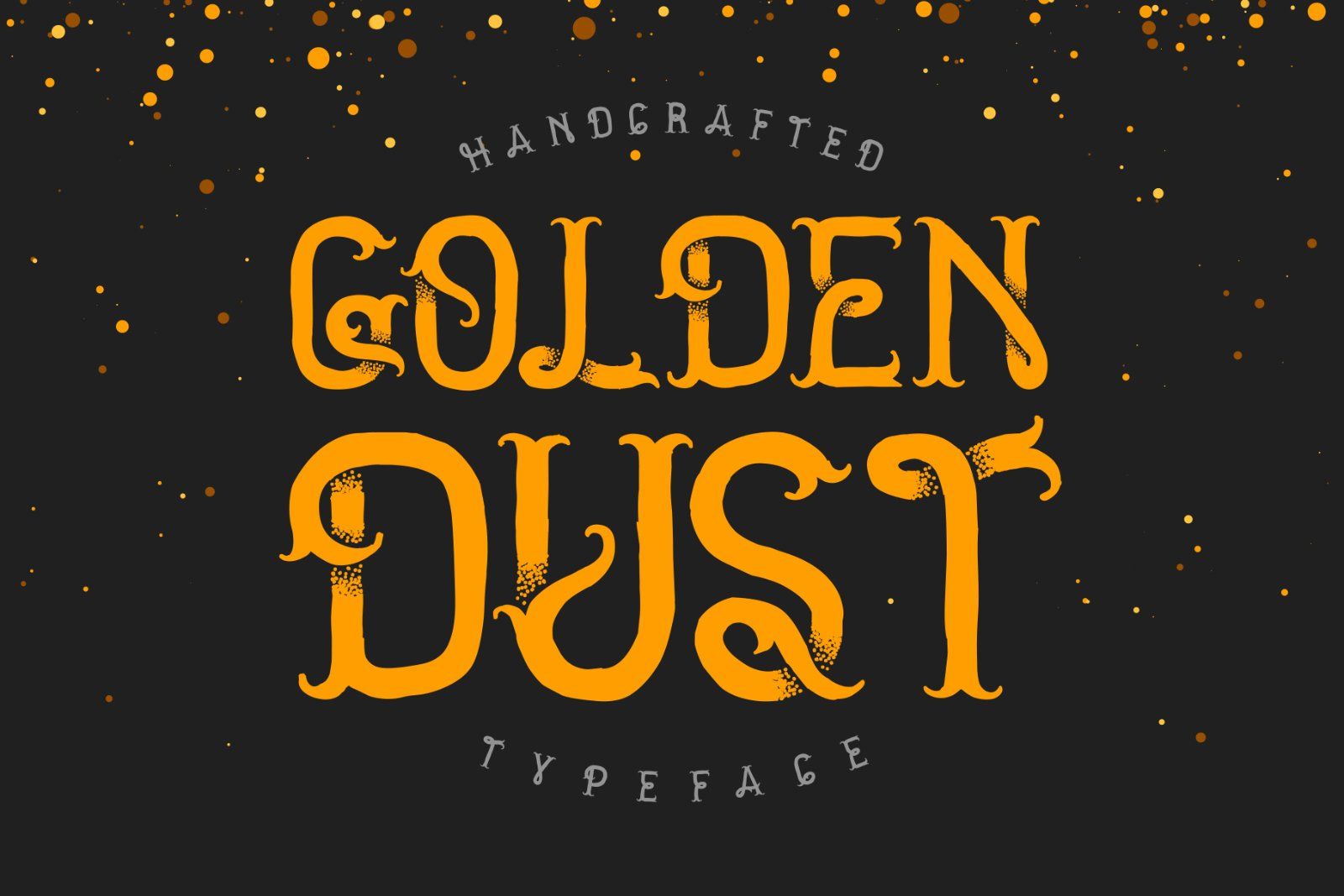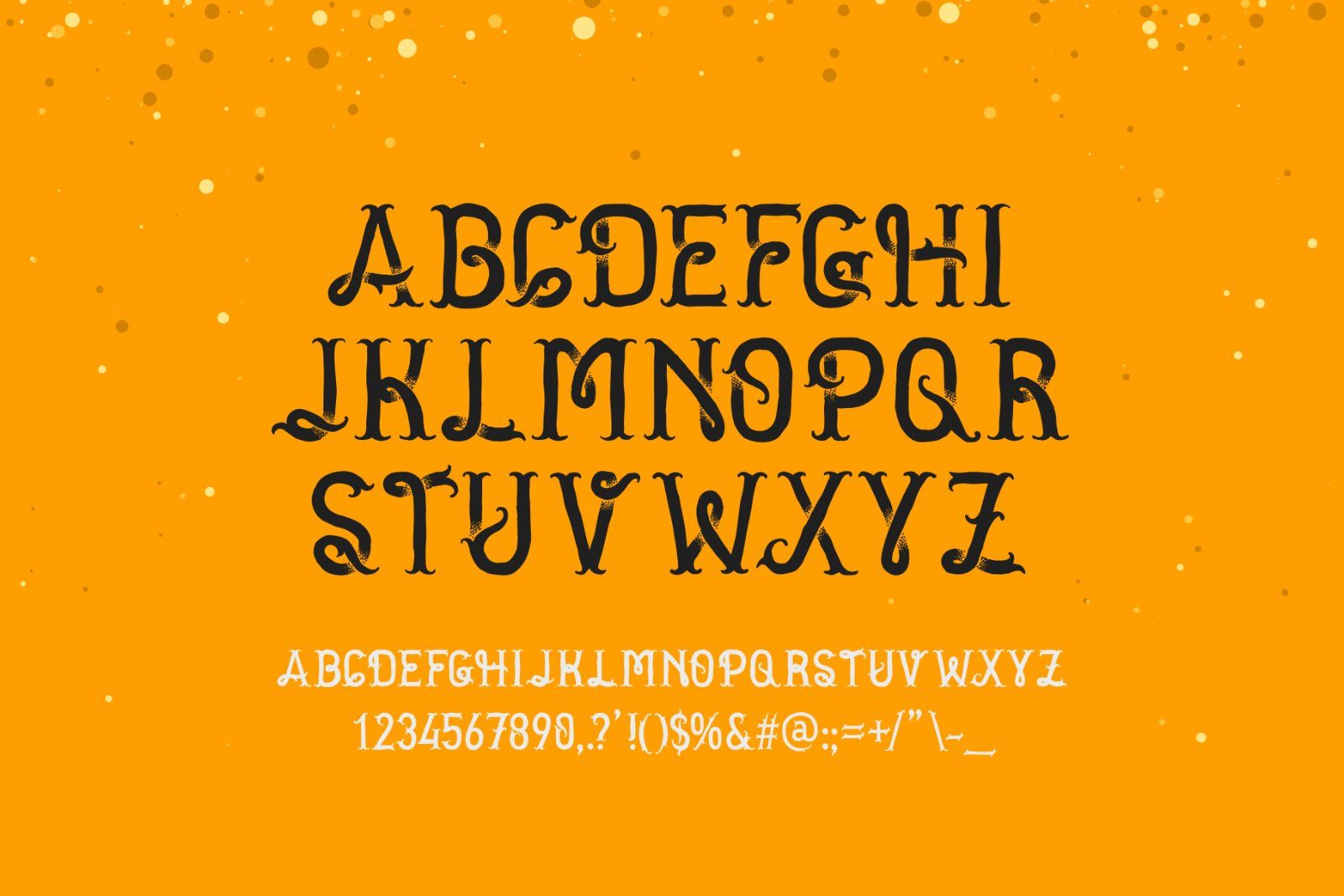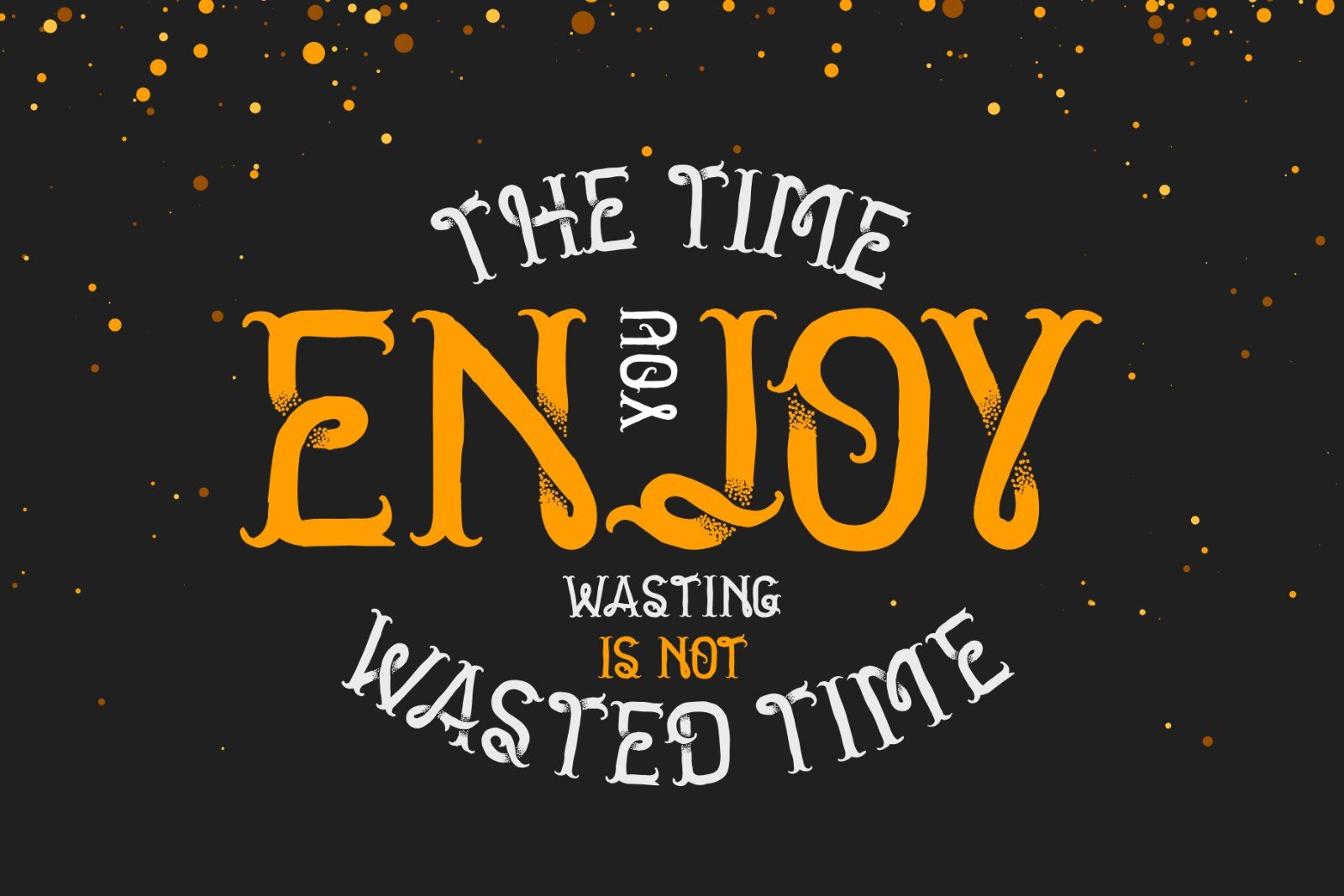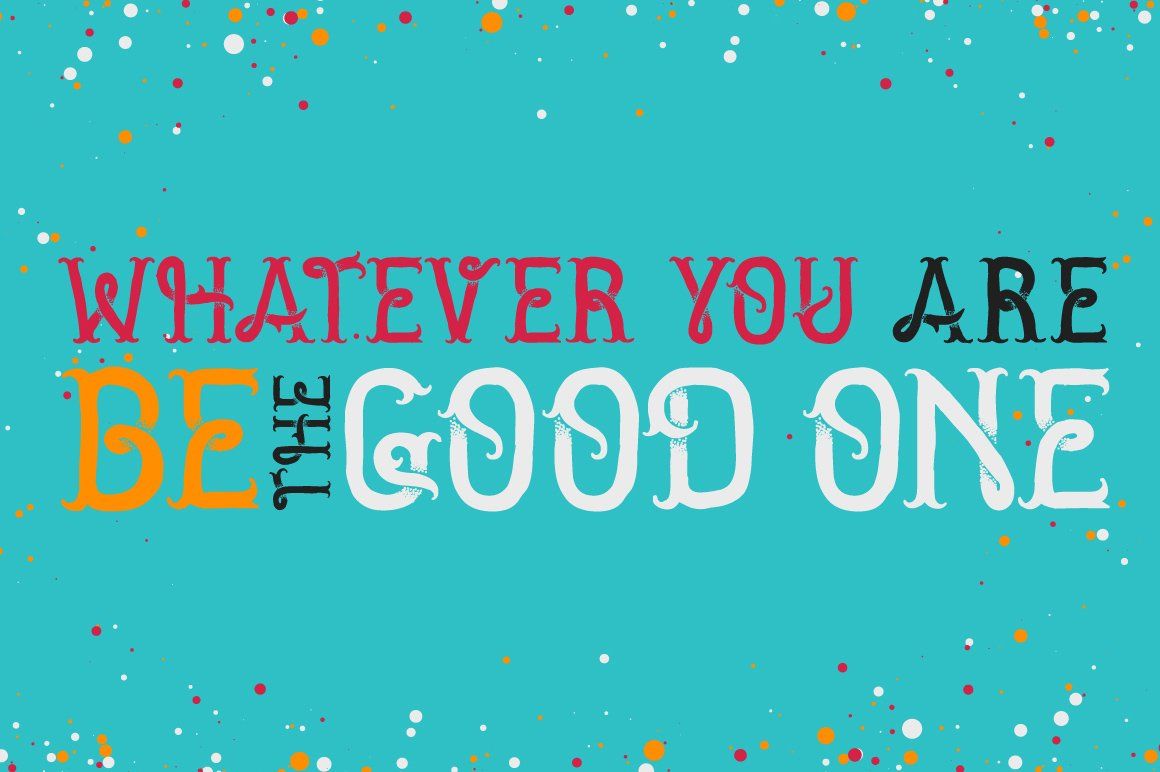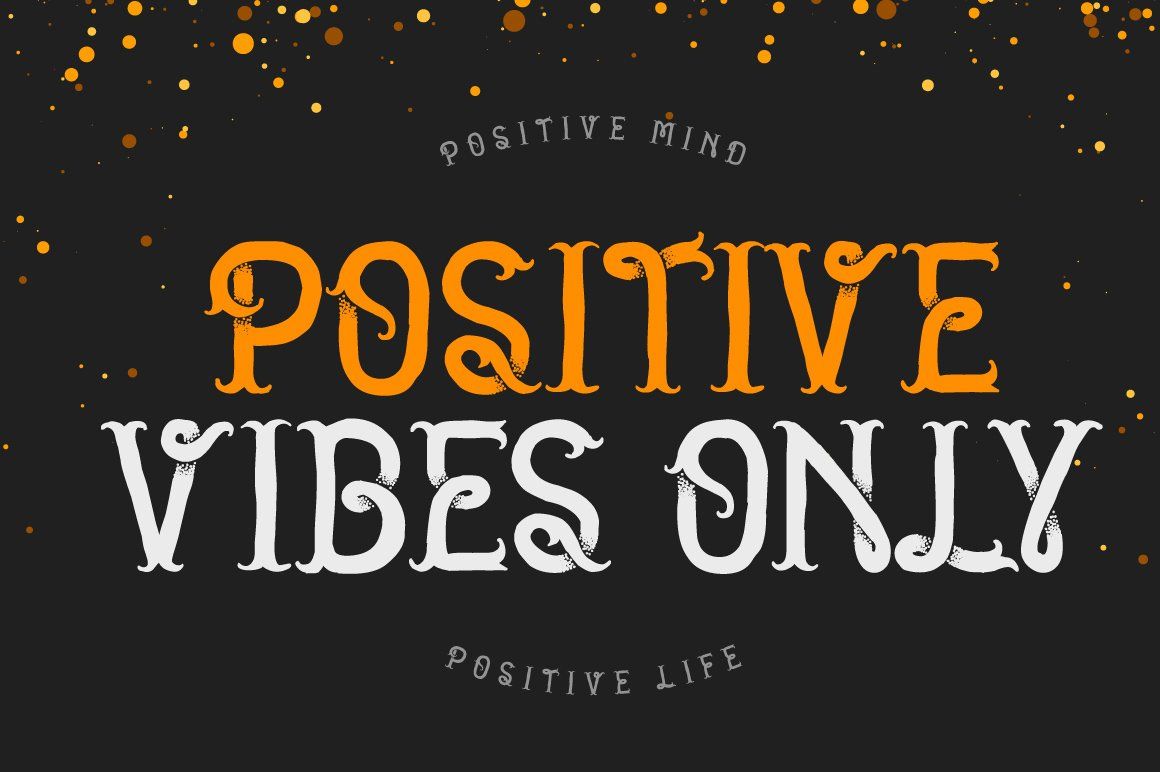
Hello! Introducing a "Golden dust" font. Fully handcrafted with vintage points effect. Hundreds of dots brings a lot of fun :) I hope you'll enjoy it!
Capital letters includes a dotted effect, small letters are simplified for a smaller text.